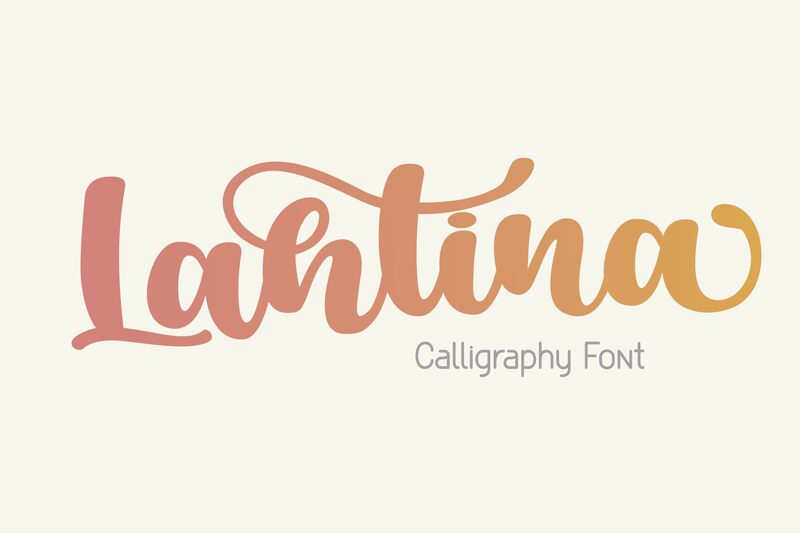
Lahtina is a bold calligraphy font created by EKNOJI Studio. It's perfect for giving your projects an elegant, unique touch - use it to add a special flair to invitations, logos, posters and other creative designs. With its intricate curves and distinctive style, Lahtina is sure to make any project stand out. Plus, its boldness gives it a feeling of authority and sophistication, making it ideal for titles or headings.
Lahtina
EKNOJI Studio